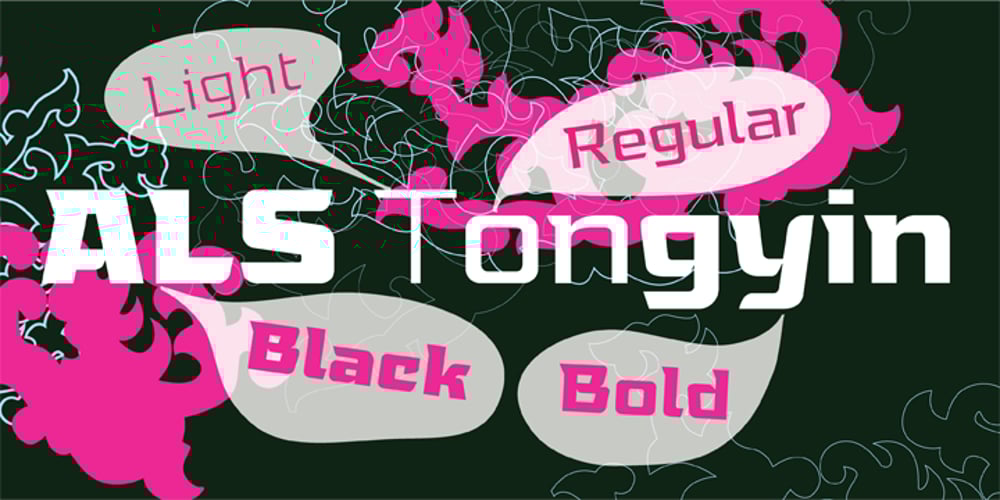
ALS Tongyin Font Family was designed by Zakhar Yaschin and published by Art. Lebedev Studio. ALS Tongyin contains 4 styles and family package options. ALS Tongyin is a bit rough and square-built with a pronounced oriental touch (Chinese word “tongyin” means “bronze molding”). Tongyin declares its ties to Russian constructivism and has 4 font styles. It matches well the rustic accident type frequently used for ads and announcements in Russian newspapers.